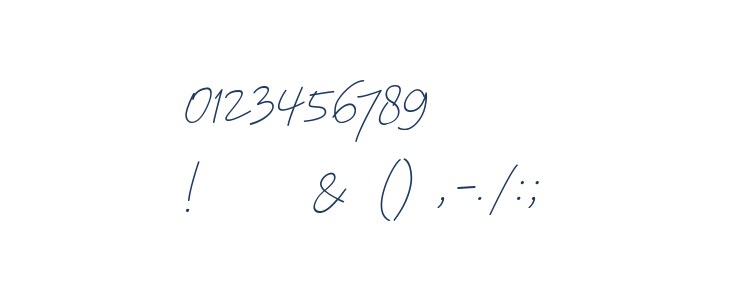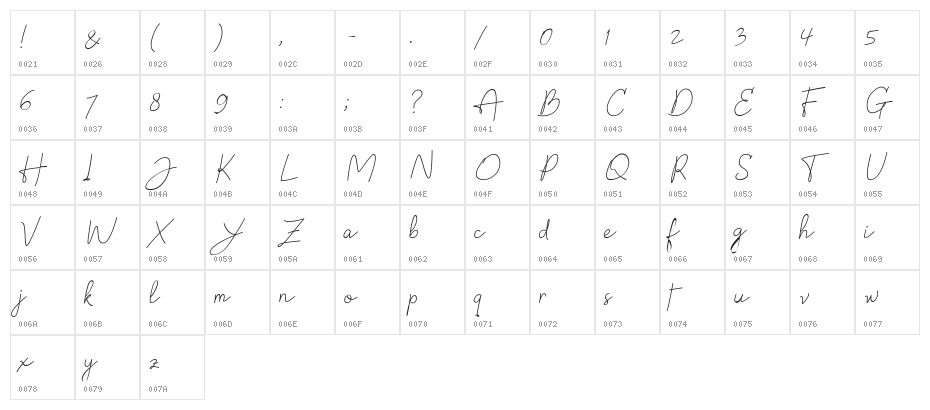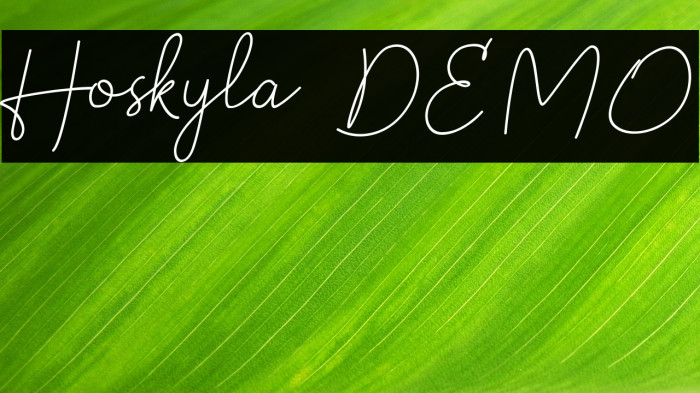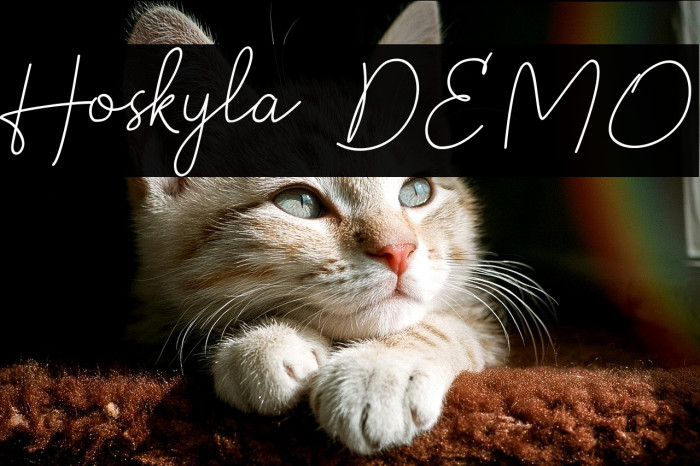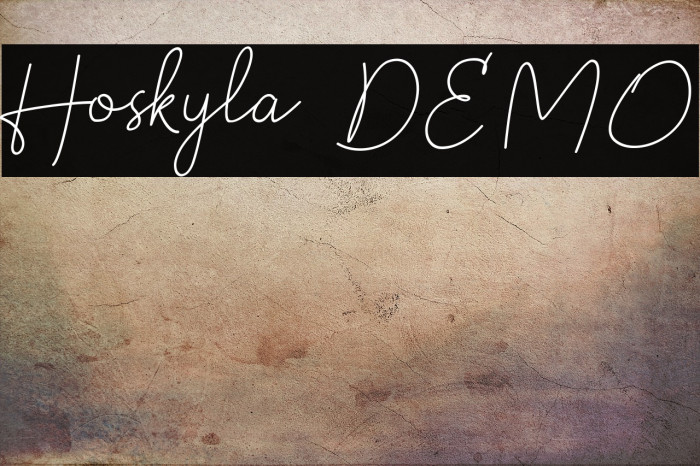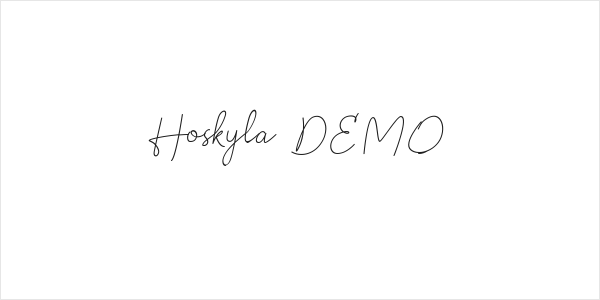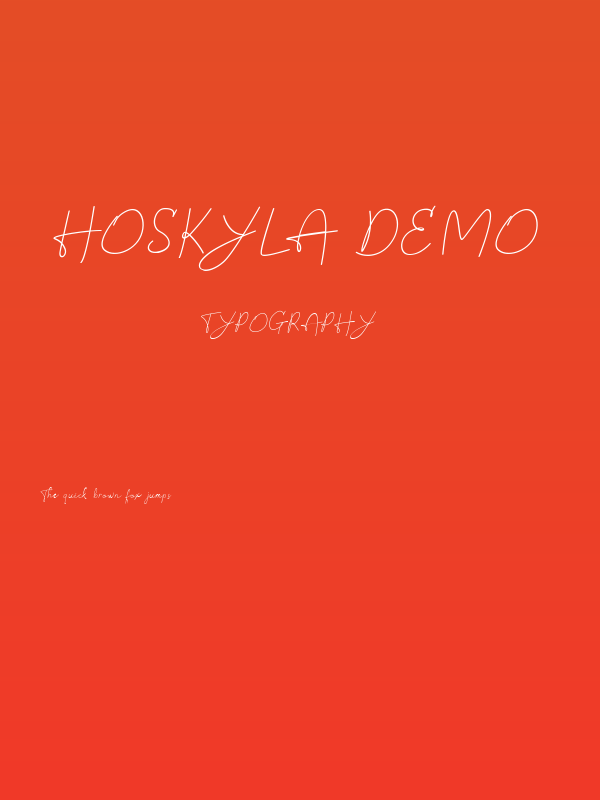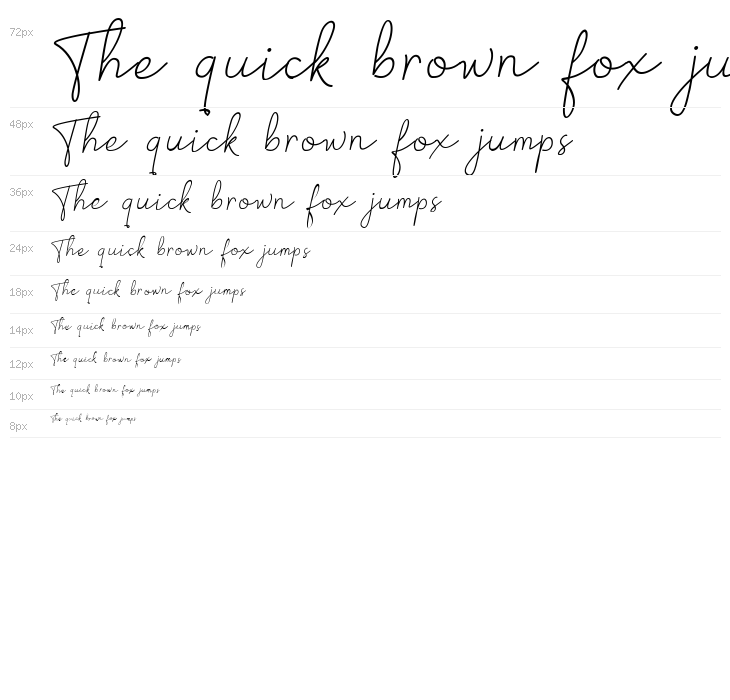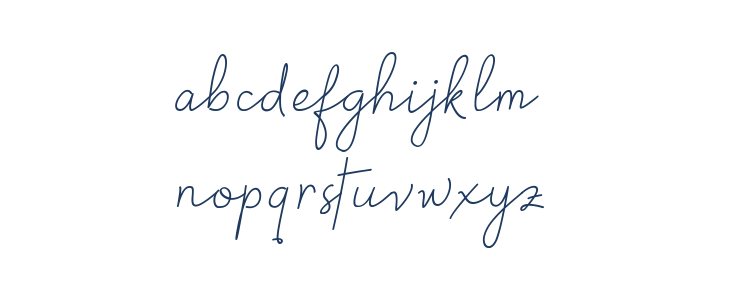
Hoskyla DEMO Font
Hoskyla DEMO Description
This font features a delicate and flowing script style, characterized by its elegant and cursive letterforms. The uppercase letters are tall and slender, with graceful loops and curves that give a sense of fluidity and movement. The lowercase letters maintain a consistent style, with smooth connections and a handwritten appearance. The numerals are similarly styled, offering a cohesive look across all characters. Special characters are thoughtfully integrated, maintaining the overall aesthetic. This font exudes a sense of sophistication and charm, making it suitable for projects that require a personal and artistic touch.
Overall StyleElegant, Handwritten
Use CaseLogos, Invitations, Artistic projects
Proposed ProjectsIdeal for wedding invitations, greeting cards, personal branding, and artistic projects.